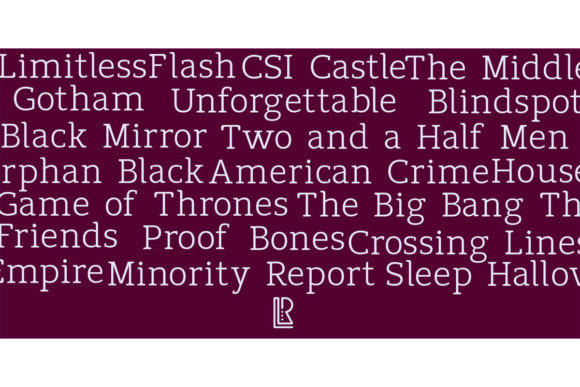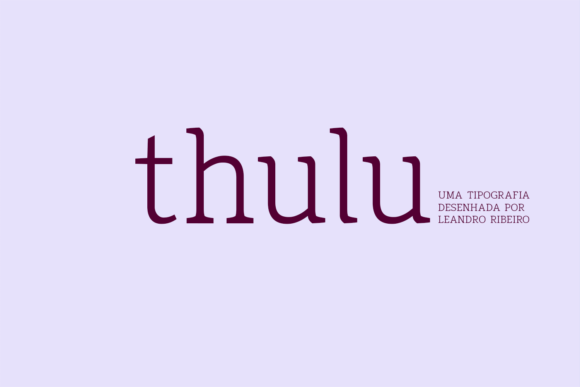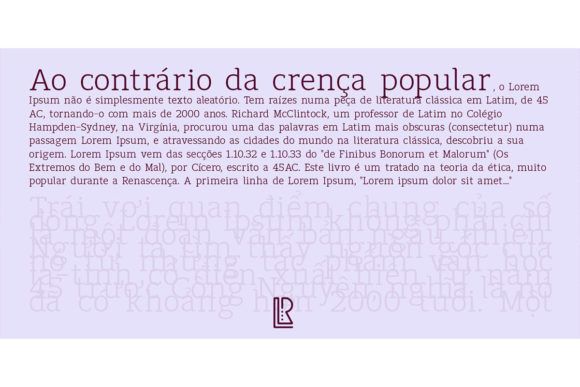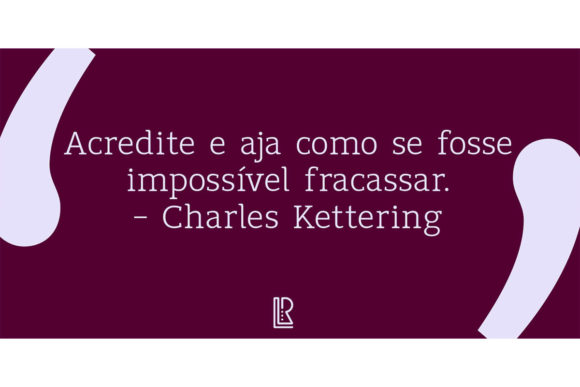
Thulu
Thulu: A Cool and Adaptable Slab Serif Font
Thulu is a versatile slab serif font known for its cool and adaptable style. This typeface is a wonderful asset to any font library, enhancing a wide range of creative projects.
Key Features of Thulu
• Cool Design: Offers a modern and stylish look suitable for various applications.
• Slab Serif Structure: Features thick, rectangular serifs typical of slab serif fonts.
• Adaptable Application: Ideal for projects ranging from logos to digital media.
• Impactful Presence: Designed to make designs stand out with its unique aesthetic.
Ideal Uses for Thulu
Thulu’s unique characteristics make it particularly well-suited for:
When incorporating Thulu into your designs, consider these tips:
• Use for headlines or short blocks of text to showcase its cool style.
• Utilize its adaptability across various creative projects to enhance visual appeal.
Thulu is an excellent choice for designers looking to add a cool and adaptable slab serif font to their typographic toolkit. Its ability to enhance various design projects makes it stand out in the world of typography. Whether you’re working on logo designs, creating layouts for magazines, or developing content that requires a touch of creativity, Thulu offers the perfect blend of style and functionality.
Furthermore, Thulu’s unique design allows it to shine in various contexts. From vintage-inspired designs with a modern twist to more contemporary layouts that need a touch of uniqueness, this font can elevate your projects. Its striking yet functional style works particularly well in designs that require a thoughtful and engaging mood.
In conclusion, Thulu is a font that truly captures the essence of creativity and impact in typography. Its ability to work well in both minimalist projects and more elaborate layouts showcases its flexibility. For those looking to add a touch of unique charm to their work, Thulu can even enhance themed creations with its distinctive style. It’s the perfect choice for designers seeking to make a strong, stylish impact across a wide range of creative projects.